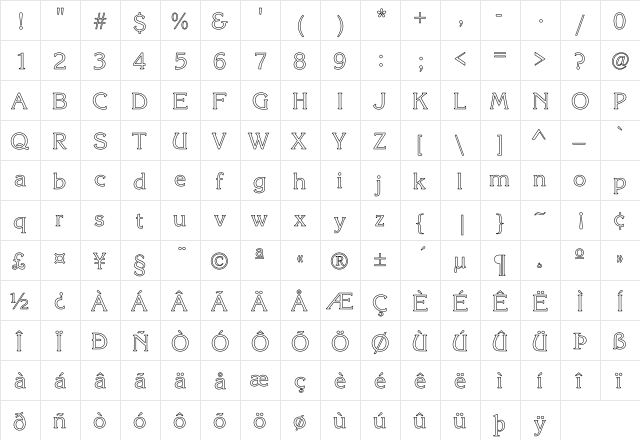
Corinna Ho Regular
Design Context for Corinna Ho Typeface
Corinna Ho offers clean, dependable letterforms without strong stylistic allegiance, making it a practical choice for designers who need flexibility.
Pro Tip: Use Corinna Ho in both headline and body roles to test its range before committing to a single application.